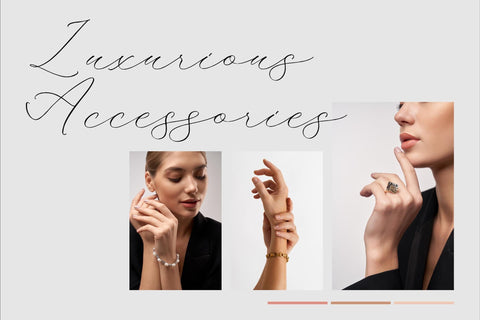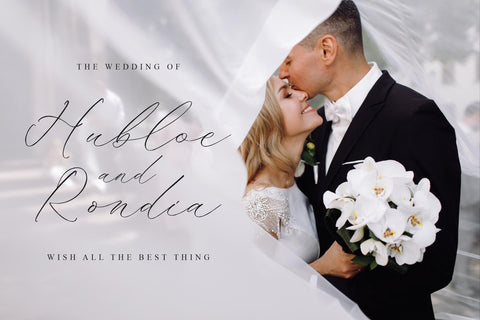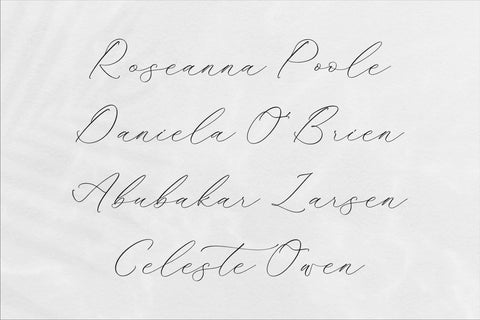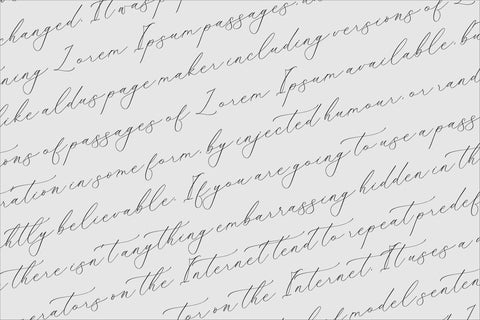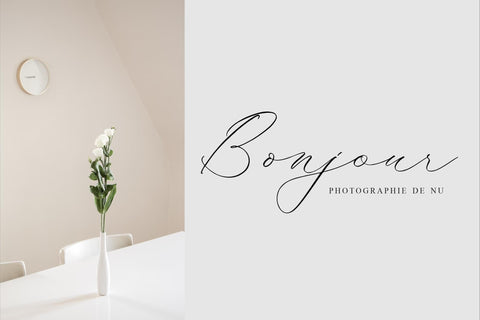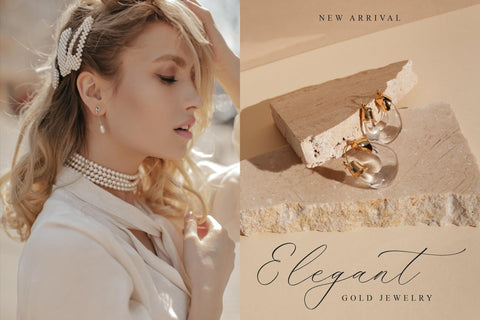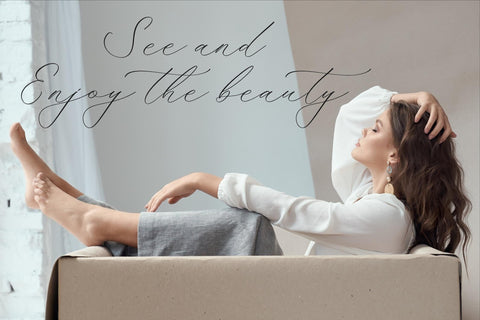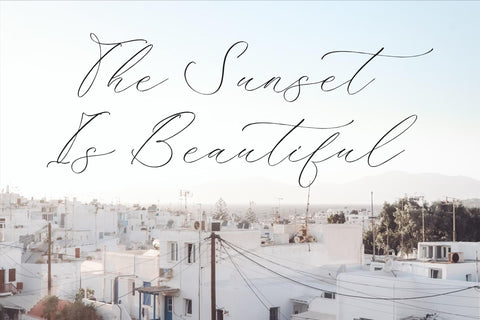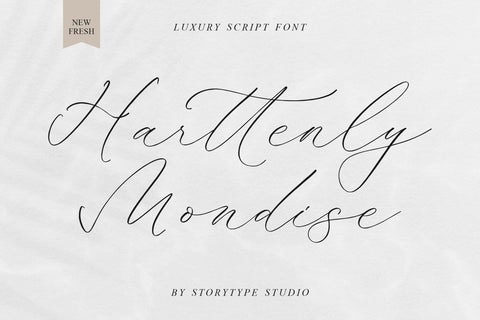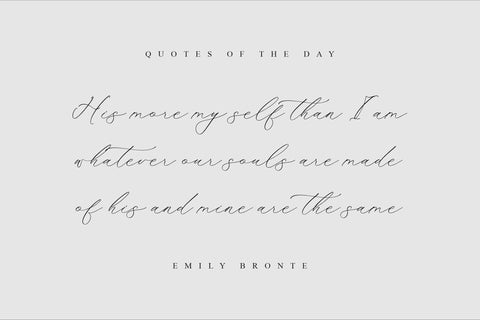
Harttenly Mondise - Luxury Script Font
Proudly present Harttenly Mondise - Luxury Script Font , created by Storytype,
A luxury script that has own unique style & modern look.